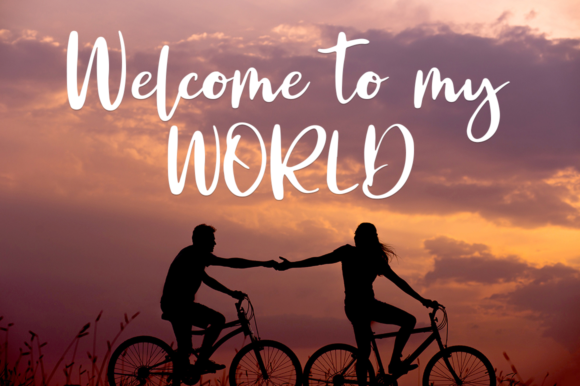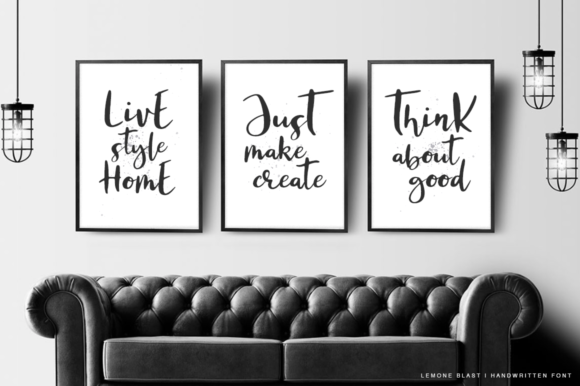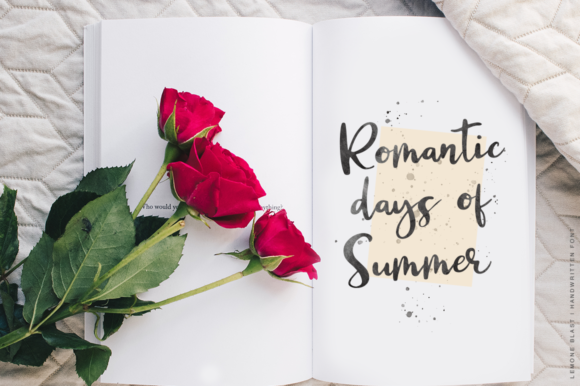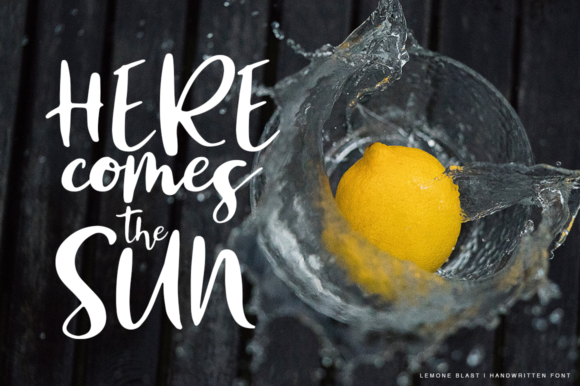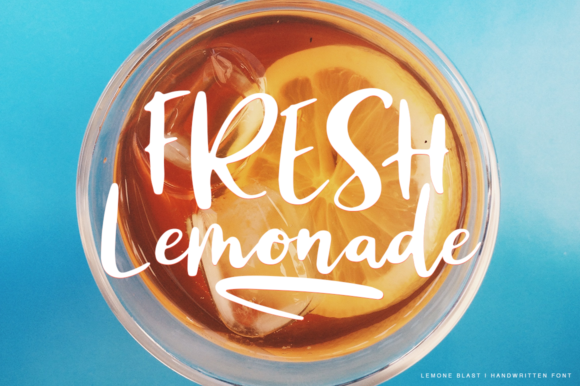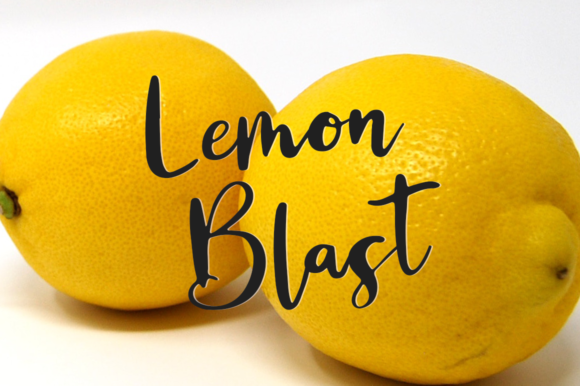
Introduction to Lemon Blast Font
Do you remember the excitement of browsing through a vintage stationery store, surrounded by colorful pens and eclectic paper samples? That’s exactly where the idea for the Lemon Blast Font was born. As a designer, there’s something magical about stumbling upon a unique design element that can elevate your project to the next level.
The Lemon Blast Font is a stunning, handmade calligraphy font that’s perfect for adding a touch of personality to your creative projects. Whether you’re designing a wedding invitation, a blog, or a logo, this font is sure to make a lasting impression. With its high-quality design and transparent background, it’s a valuable resource for designers who want to take their projects to the next level.
Key Features of Lemon Blast Font
- Unique and playful design ideal for creative projects and branding.
- High-quality font with a transparent background, allowing for versatile usage.
- Features a large character set with over 250 glyphs, including international characters.
Honest Review: Lemon Blast Font
As a designer, I’m always on the lookout for unique and high-quality design resources to elevate my creative projects. Recently, I stumbled upon the Lemon Blast Font, and I’m excited to share my honest review with you.
- ✨ The font’s bold and vibrant design perfectly captures the essence of citrusy freshness.
- ✨ The high-quality design is crisp and clear, making it perfect for digital and print projects.
- ✨ The transparent background option allows for seamless integration with various design elements.
- ⚠️ The font’s limited character set may not be suitable for longer text-based projects.
- ⚠️ Some users may find the font’s bold design overwhelming for more subtle designs.
Overall, I’m impressed with the Lemon Blast Font and would recommend it for designers looking to add a pop of color and energy to their creative projects. Just be mindful of the limitations mentioned above. With its high-quality design and free download, this font is definitely a valuable addition to any designer’s toolkit.
Designing with Lemon Blast Font
When using the Lemon Blast Font, consider the following tips:
- Use a transparent background to create a clean and minimalist design.
- Experiment with different font sizes and colors to achieve a unique look.
- Combine the Lemon Blast Font with other design resources to add depth and interest to your project.
The Lemon Blast Font is suitable for a variety of creative projects, including:
- Social media graphics and advertisements.
- Event posters and flyers.
- Branding and logo designs.